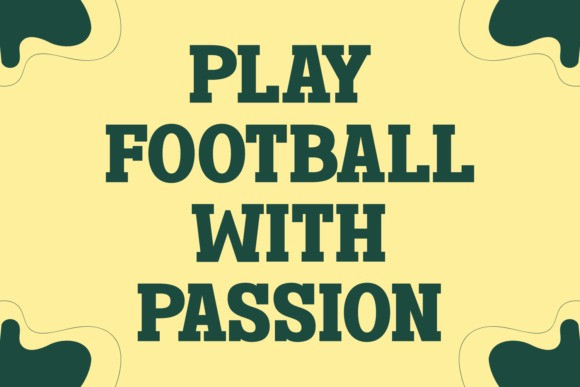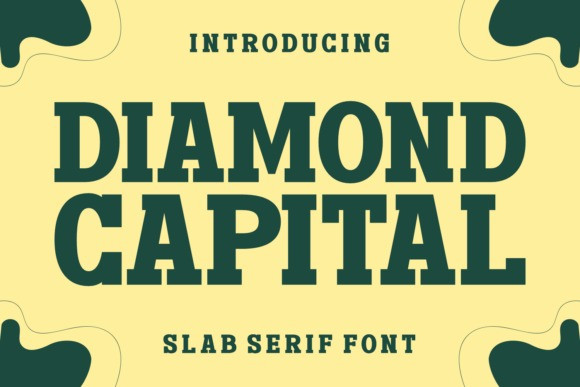
Diamond Capital Font
Diamond Capital Font a sensational embodiment of sporty aesthetics in typography. This font resonates with the energetic vibe of athleticism, making it perfect for team branding or athletic-themed projects. The outlined variant adds a unique charm, ensuring it stands elegantly against any background. Its Jersey and College styles reminisce traditional collegiate fonts, effectively pushing forth a sense of nostalgia and vintage-school spirit. A perfect choice for personalizing jerseys or college merchandise. Furthermore, the athleticism of this font is balanced by its sophisticated design, allowing for a broad range of uses, from sport gear branding to motivational posters or even sport-related web design. This font’s aesthetics make it not just a style, but a statement for every 7ntypes enthusiast out there wanting to ride the wave of sporty design.